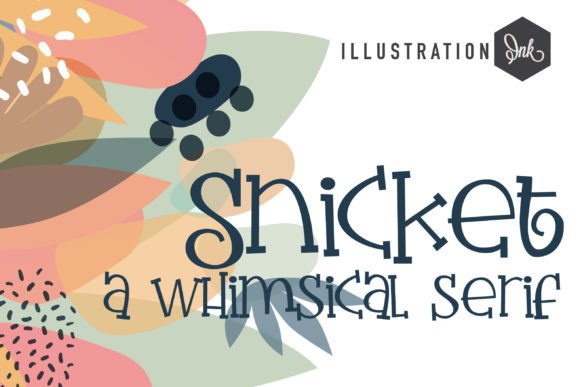
Journey into a world of visual enchantment with the Snicket Font, a spirited creation from Illustration Ink. This hand-crafted wonder dances across your digital canvas, leaving a trail of charm and individuality. With its playful spirit and undeniable magnetism, it's the perfect companion for projects seeking an unforgettable presence.
Snicket Font belongs to a rare breed of typefaces that seamlessly blend the carefree nature of childhood with the sophistication of artistic excellence. Its bold strokes and exuberant curves evoke a sense of nostalgia, transporting you to a realm where imagination reigns supreme. Each character carries a story, inviting the reader to embark on a journey of discovery.
Whether you're crafting a vibrant poster, composing a heartfelt letter, or conjuring an enchanting children's book, Snicket Font stands ready to weave its magic. Its unrivaled versatility knows no bounds, making it an indispensable asset for designers seeking to make a lasting impression.
Its primary allure lies in its remarkable ability to inject life into any project. The absence of descenders grants it an air of airy lightness, imbuing your creations with a dynamic energy that leaps off the page. It's as if each word takes flight, carrying your message with an irresistible allure.
Snicket Font possesses a remarkable chameleon-like quality, adapting effortlessly to diverse design aesthetics. Its innate ability to harmonize with various color palettes and visual elements makes it a dream to work with. Whether you envision a bold and vibrant composition or a delicate and ethereal masterpiece, Snicket Font gracefully rises to the occasion.
Dive into the world of Snicket Font and let your creativity soar. Its charm is undeniable, its versatility unparalleled, and its ability to captivate audiences undeniable. As you witness the transformative power it wields over your designs, you'll realize that Snicket Font is more than just a font—it's an artistic gateway to a world of limitless expression.